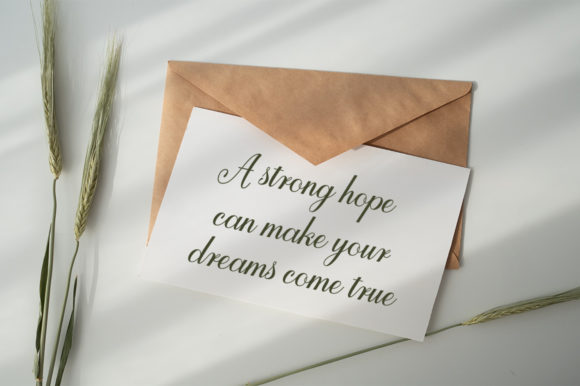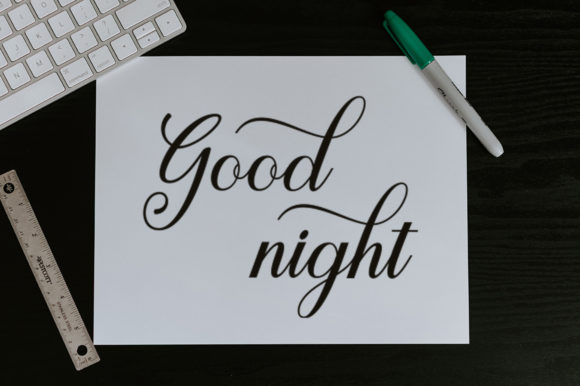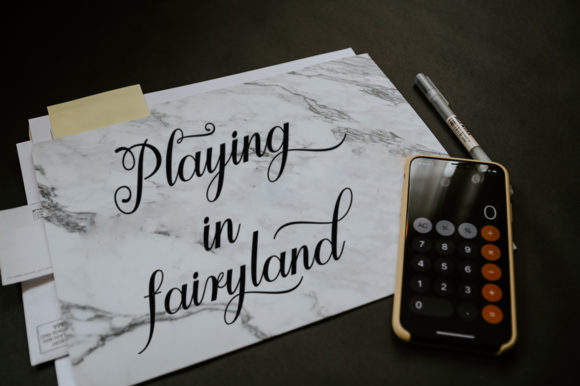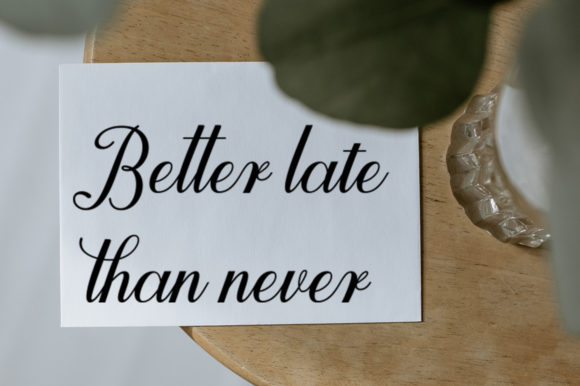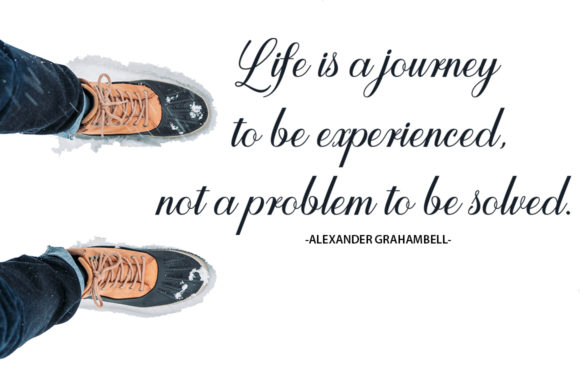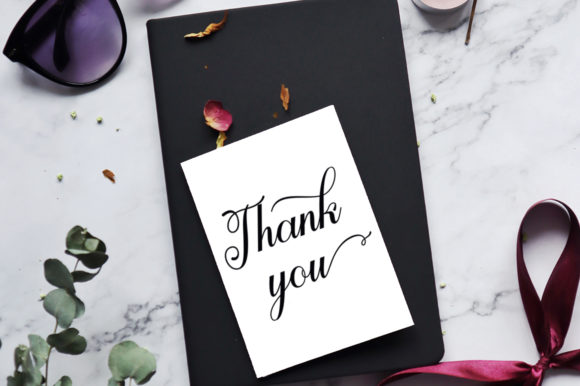
Introduction to Girly Sweet Font
Girly Sweet is a romantic and sweet calligraphy typeface with characters that dance along the baseline.
It has a casual, yet elegant touch It can be used for various purposes such as logos, wedding invitations, headings, t-shirts, letterhead, signage, labels, news, posters, badges and so much more.
Key Features of Girly Sweet Font